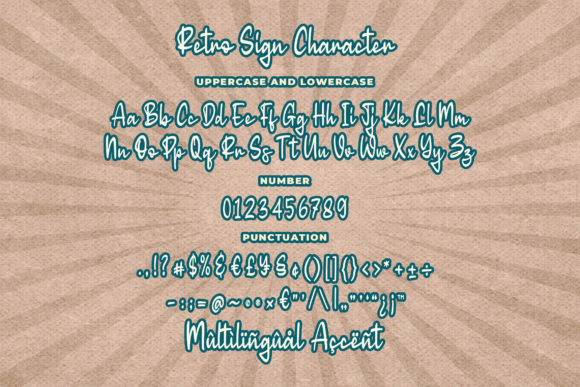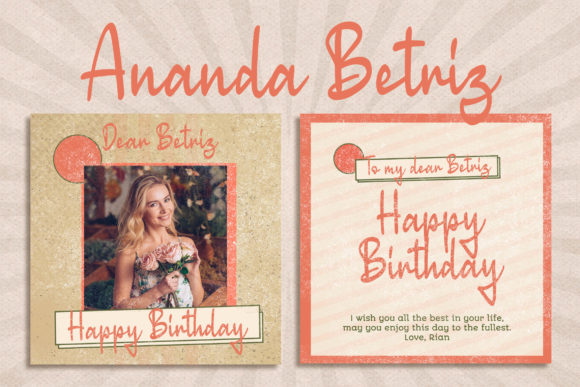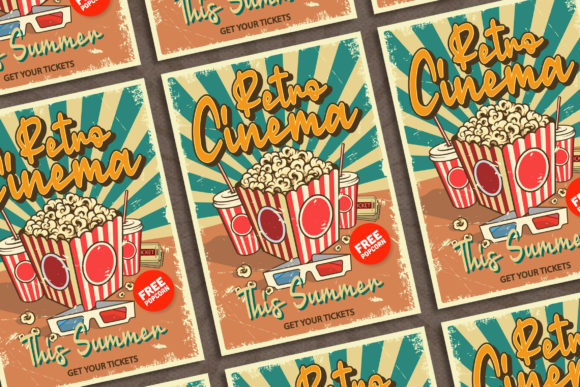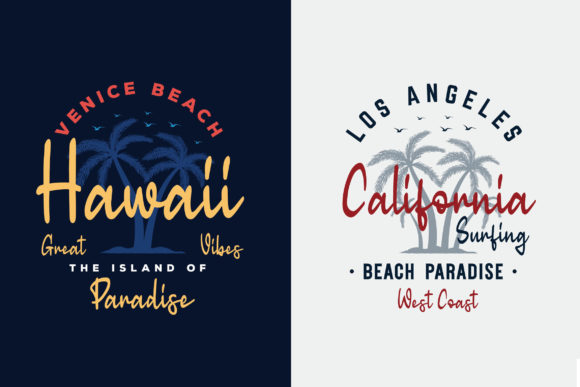
Introduction to Retro Sign Font
Retro Sign feels playfully nostalgic and delivers an incredible vintage aesthetic.
It will elevate a wide range of design projects to the highest level, be it branding, headings, wedding designs, invitations, signatures, logos, labels, and much more .
Key Features of Retro Sign Font